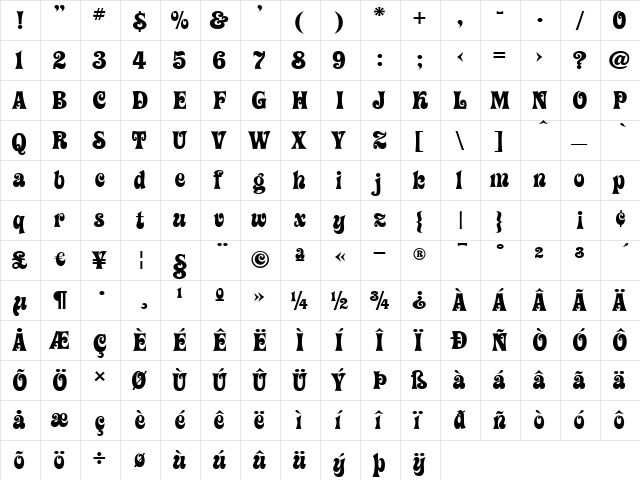
ElephantBells Heavy
Design Context for ElephantBells Typeface
ElephantBells is a composed and adaptable typeface that performs quietly and consistently across a wide range of design contexts.